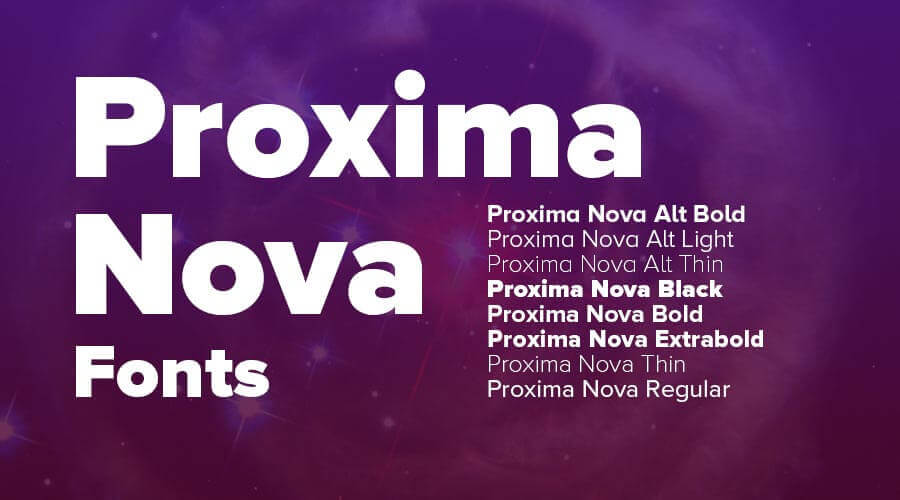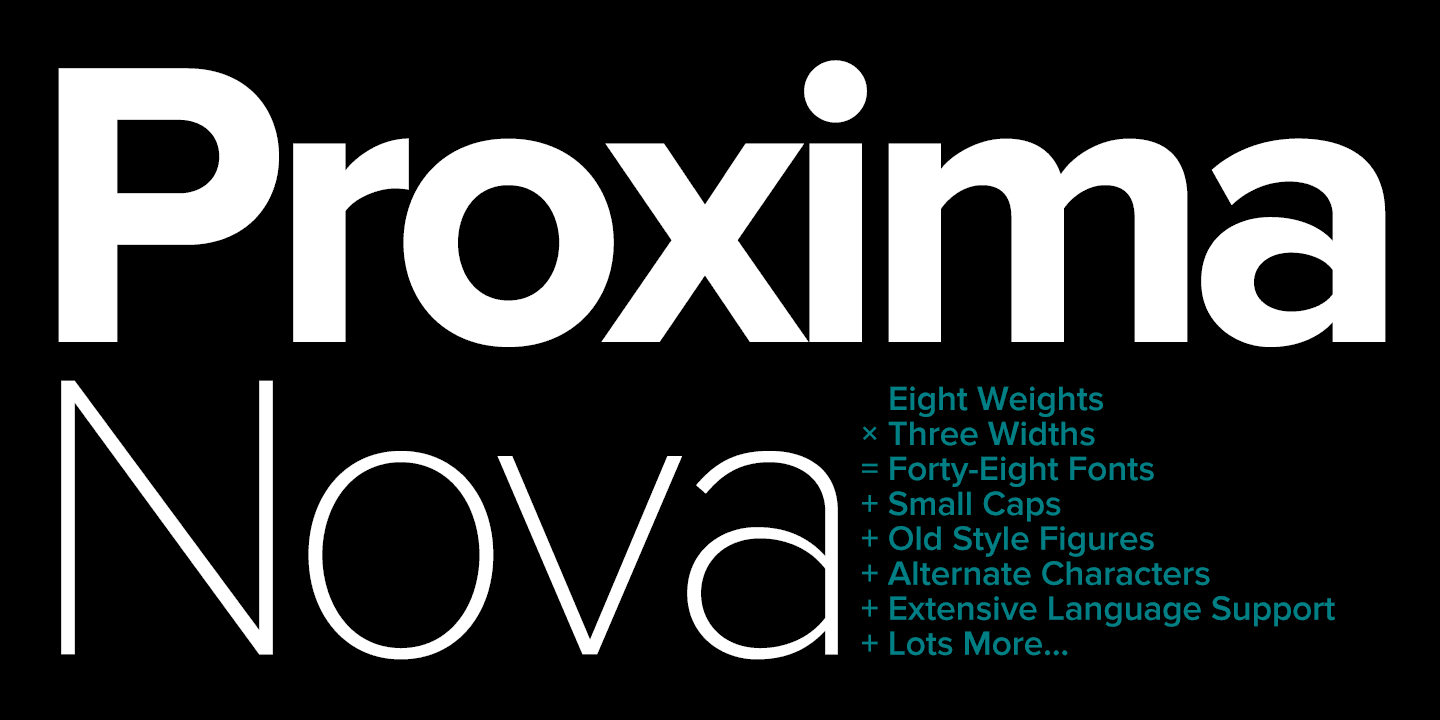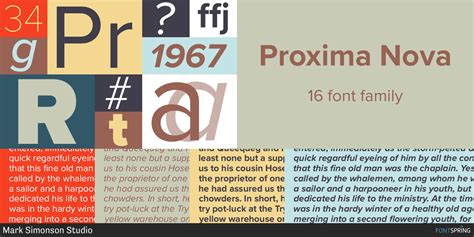
Proxima Font Download - Web proxima nova font. A sans serif typeface with 16 styles, available from adobe fonts for sync and web use. Web proxima nova font free download. Web proxima nova font free download by fontspace even the proxima nova family unit is actually a comprehensive renovation of proxima sans (1994). Web ds nova 1 style uncategorized 19 downloads download iova nova 1 style uncategorized 40 downloads download mj_nova 1 style uncategorized 8. Proxima nova sans serif font is a strong, versatile geometric sans with industrial quality. It’s designed and shared by mark simonson. Web explore proxima nova designed by mark simonson at adobe fonts.
Web proxima nova font free download by fontspace even the proxima nova family unit is actually a comprehensive renovation of proxima sans (1994). Web proxima nova font free download. Web explore proxima nova designed by mark simonson at adobe fonts. A sans serif typeface with 16 styles, available from adobe fonts for sync and web use. It’s designed and shared by mark simonson. Web proxima nova font. Proxima nova sans serif font is a strong, versatile geometric sans with industrial quality. Web ds nova 1 style uncategorized 19 downloads download iova nova 1 style uncategorized 40 downloads download mj_nova 1 style uncategorized 8.
Web explore proxima nova designed by mark simonson at adobe fonts. Web proxima nova font free download. It’s designed and shared by mark simonson. Web proxima nova font free download by fontspace even the proxima nova family unit is actually a comprehensive renovation of proxima sans (1994). A sans serif typeface with 16 styles, available from adobe fonts for sync and web use. Proxima nova sans serif font is a strong, versatile geometric sans with industrial quality. Web proxima nova font. Web ds nova 1 style uncategorized 19 downloads download iova nova 1 style uncategorized 40 downloads download mj_nova 1 style uncategorized 8.
Web proxima nova font free download. A sans serif typeface with 16 styles, available from adobe fonts for sync and web use. Web proxima nova font. It’s designed and shared by mark simonson. Web explore proxima nova designed by mark simonson at adobe fonts.
Web explore proxima nova designed by mark simonson at adobe fonts. It’s designed and shared by mark simonson. Web ds nova 1 style uncategorized 19 downloads download iova nova 1 style uncategorized 40 downloads download mj_nova 1 style uncategorized 8. Web proxima nova font free download. Proxima nova sans serif font is a strong, versatile geometric sans with industrial quality.
Proxima nova sans serif font is a strong, versatile geometric sans with industrial quality. Web proxima nova font free download by fontspace even the proxima nova family unit is actually a comprehensive renovation of proxima sans (1994). Web explore proxima nova designed by mark simonson at adobe fonts. Web proxima nova font. Web ds nova 1 style uncategorized 19 downloads.
Web proxima nova font free download by fontspace even the proxima nova family unit is actually a comprehensive renovation of proxima sans (1994). A sans serif typeface with 16 styles, available from adobe fonts for sync and web use. Web proxima nova font free download. Web explore proxima nova designed by mark simonson at adobe fonts. Proxima nova sans serif.
Web explore proxima nova designed by mark simonson at adobe fonts. Web ds nova 1 style uncategorized 19 downloads download iova nova 1 style uncategorized 40 downloads download mj_nova 1 style uncategorized 8. Web proxima nova font free download by fontspace even the proxima nova family unit is actually a comprehensive renovation of proxima sans (1994). It’s designed and shared.
Web proxima nova font free download by fontspace even the proxima nova family unit is actually a comprehensive renovation of proxima sans (1994). Proxima nova sans serif font is a strong, versatile geometric sans with industrial quality. Web ds nova 1 style uncategorized 19 downloads download iova nova 1 style uncategorized 40 downloads download mj_nova 1 style uncategorized 8. Web.
It’s designed and shared by mark simonson. Web explore proxima nova designed by mark simonson at adobe fonts. Web proxima nova font. Web proxima nova font free download by fontspace even the proxima nova family unit is actually a comprehensive renovation of proxima sans (1994). A sans serif typeface with 16 styles, available from adobe fonts for sync and web.
Web proxima nova font. Web proxima nova font free download by fontspace even the proxima nova family unit is actually a comprehensive renovation of proxima sans (1994). Proxima nova sans serif font is a strong, versatile geometric sans with industrial quality. Web ds nova 1 style uncategorized 19 downloads download iova nova 1 style uncategorized 40 downloads download mj_nova 1.
Proxima nova sans serif font is a strong, versatile geometric sans with industrial quality. It’s designed and shared by mark simonson. Web proxima nova font. Web proxima nova font free download. A sans serif typeface with 16 styles, available from adobe fonts for sync and web use.
Web ds nova 1 style uncategorized 19 downloads download iova nova 1 style uncategorized 40 downloads download mj_nova 1 style uncategorized 8. Proxima nova sans serif font is a strong, versatile geometric sans with industrial quality. Web proxima nova font free download by fontspace even the proxima nova family unit is actually a comprehensive renovation of proxima sans (1994). Web explore proxima nova designed by mark simonson at adobe fonts.
It’s Designed And Shared By Mark Simonson.